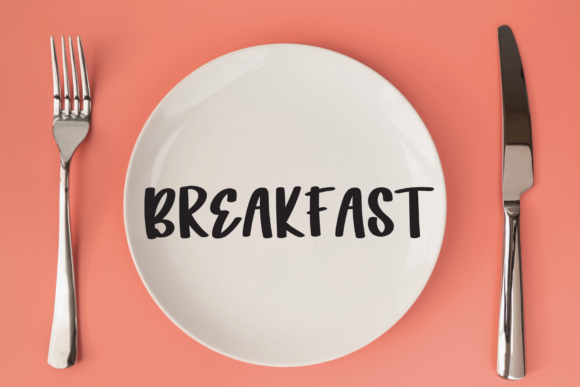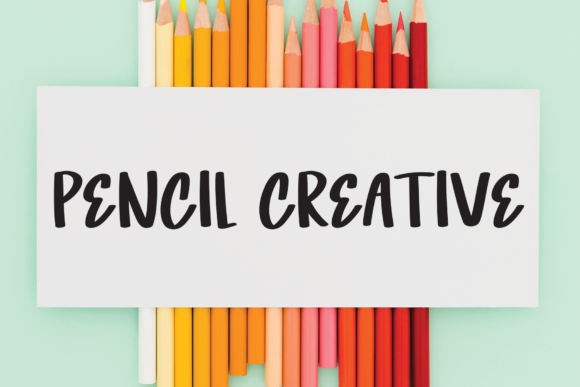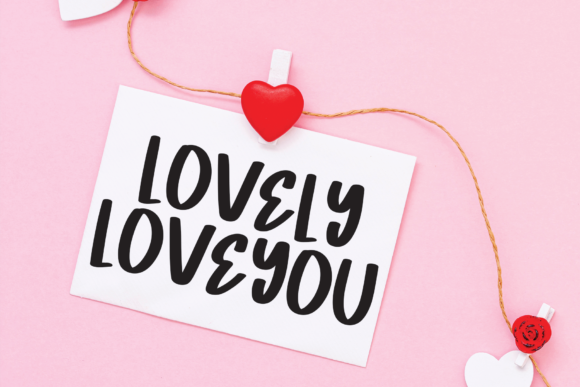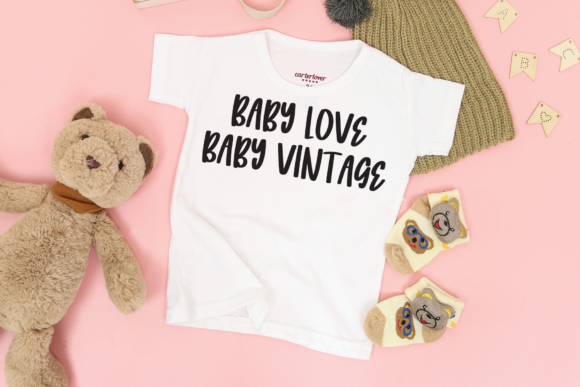
Mermaid Uniqorn Font
About Mermaid Uniqorn Font
Mermaid Uniqorn is a trendy, simple lettered and cool handwritten font. Whether you’re looking for fonts for Instagram or calligraphy scripts for DIY projects, this font will turn any creative idea into a true piece of art!